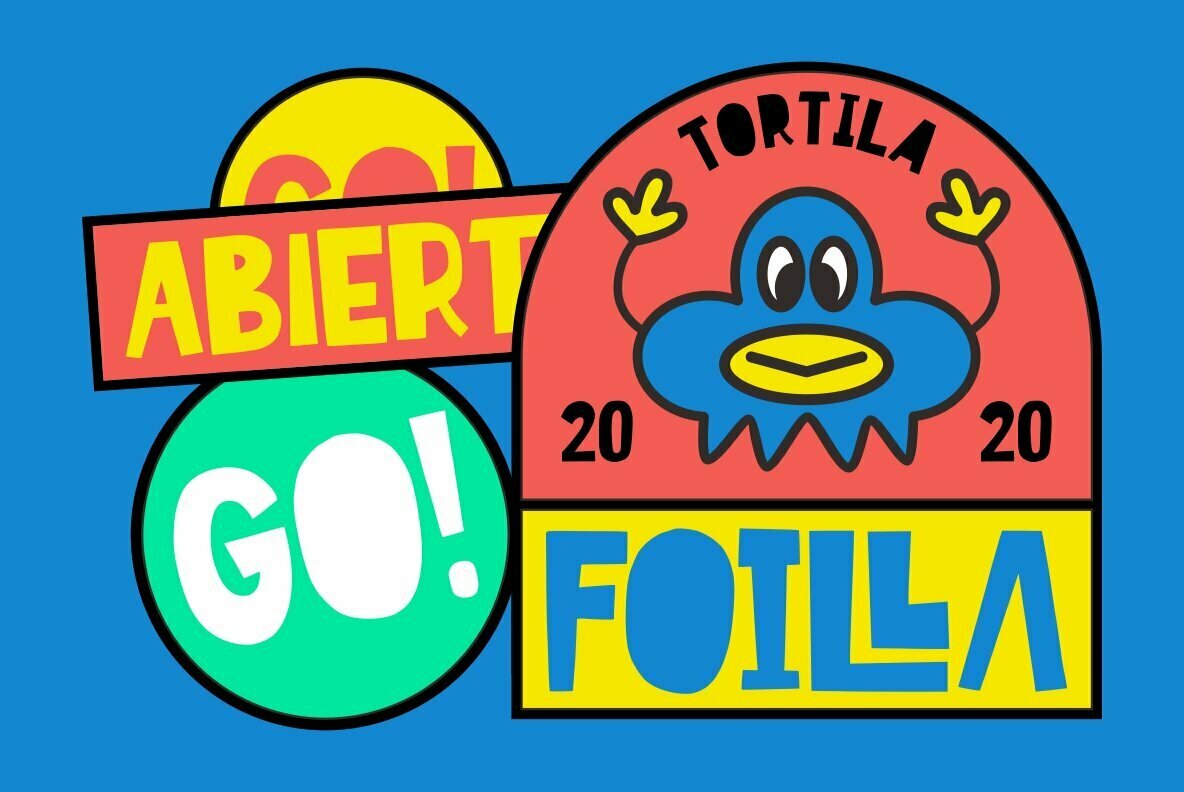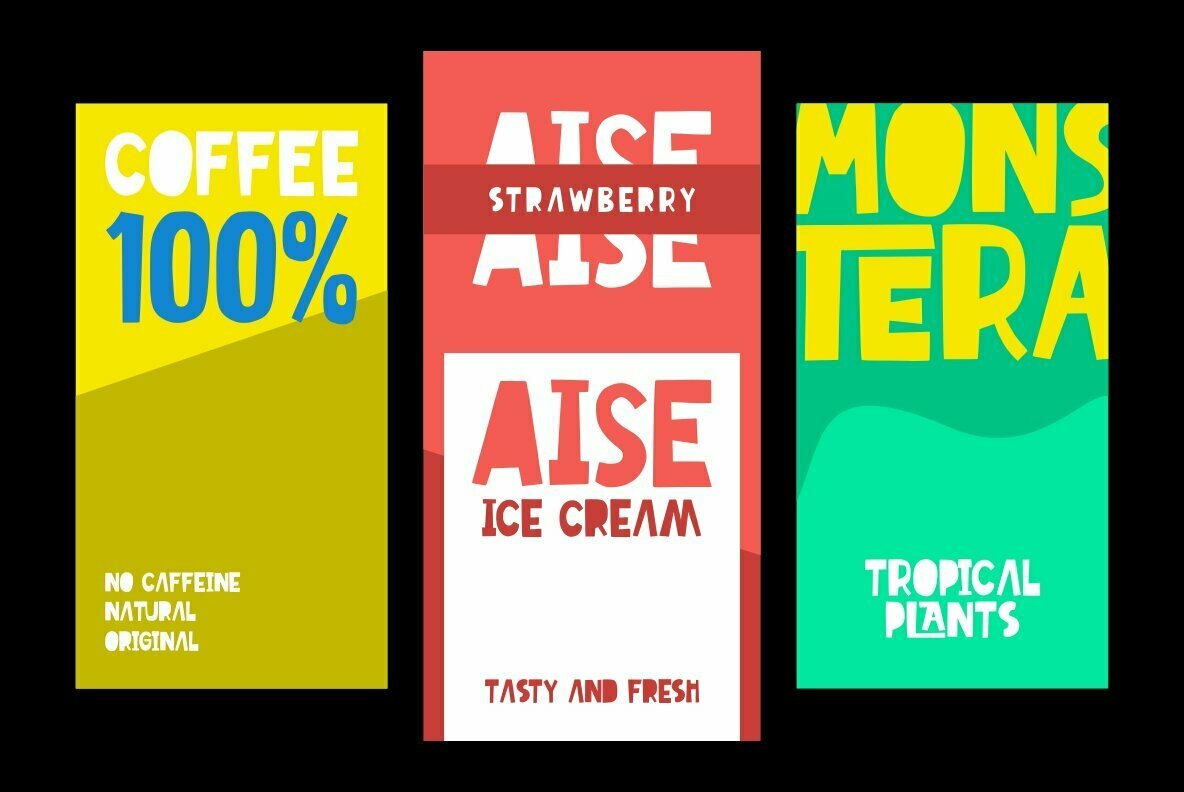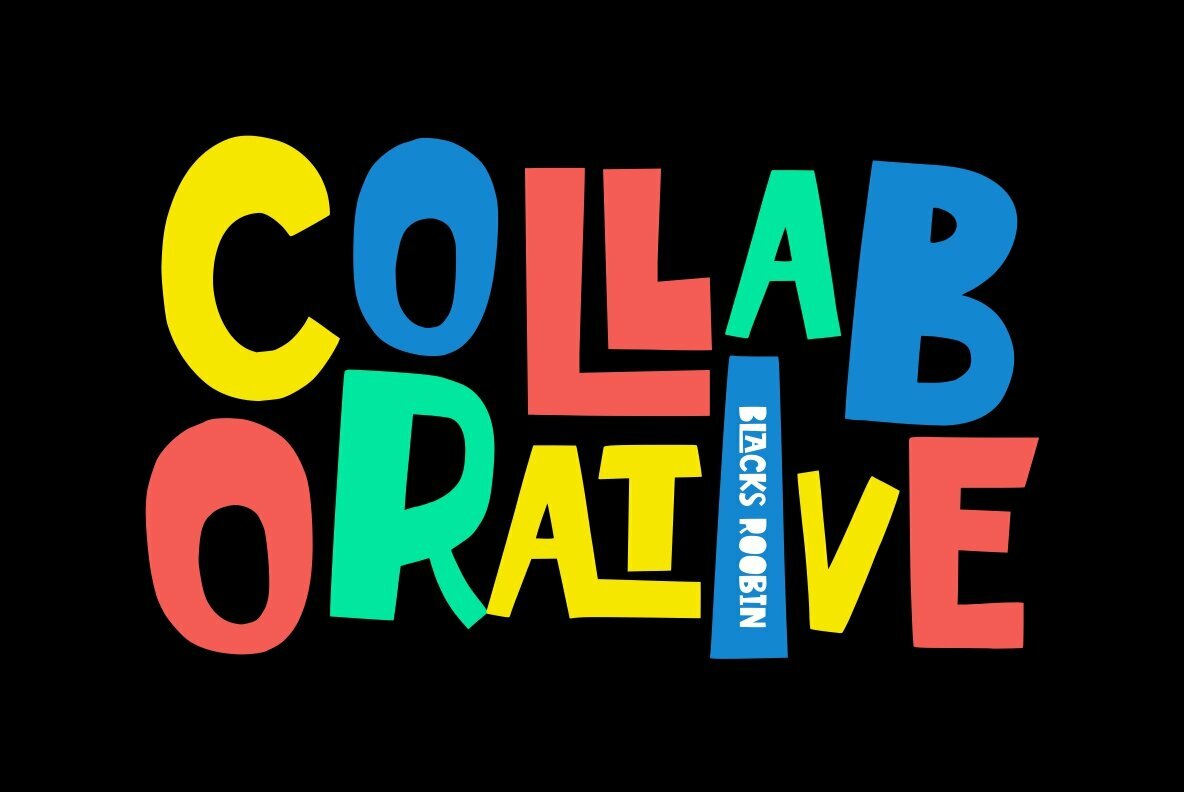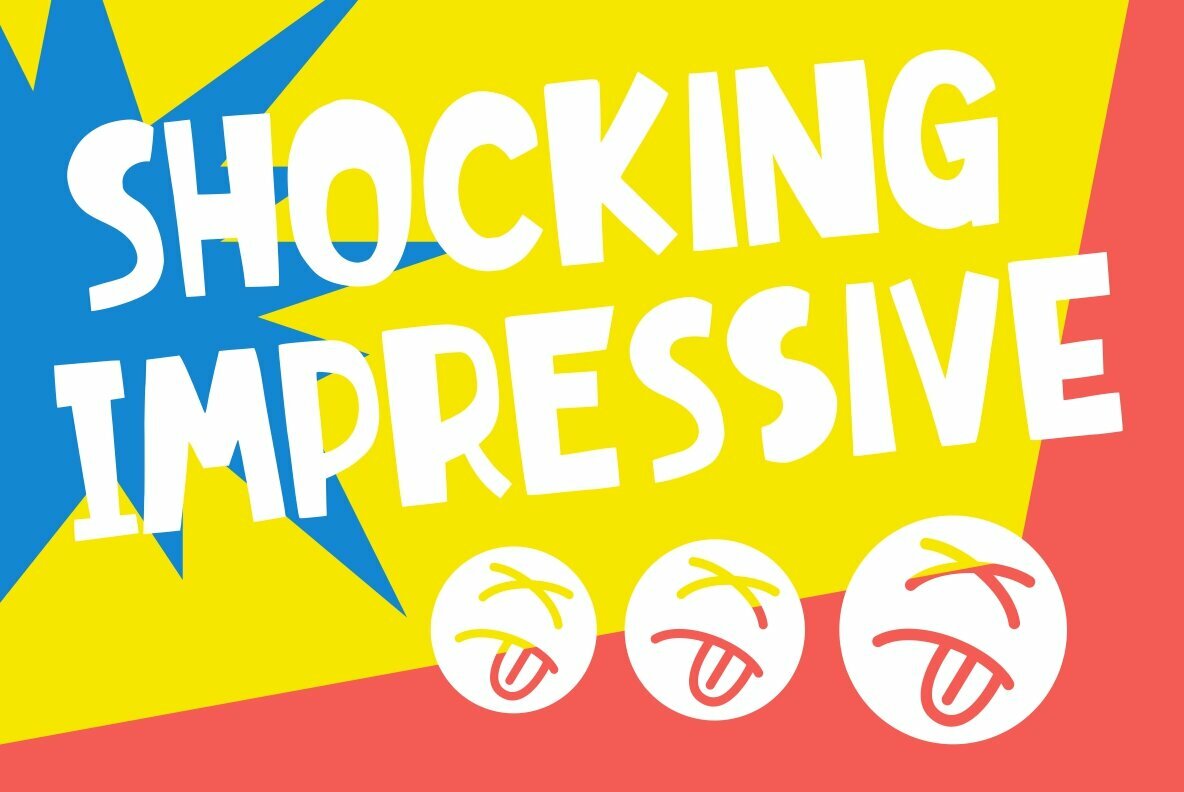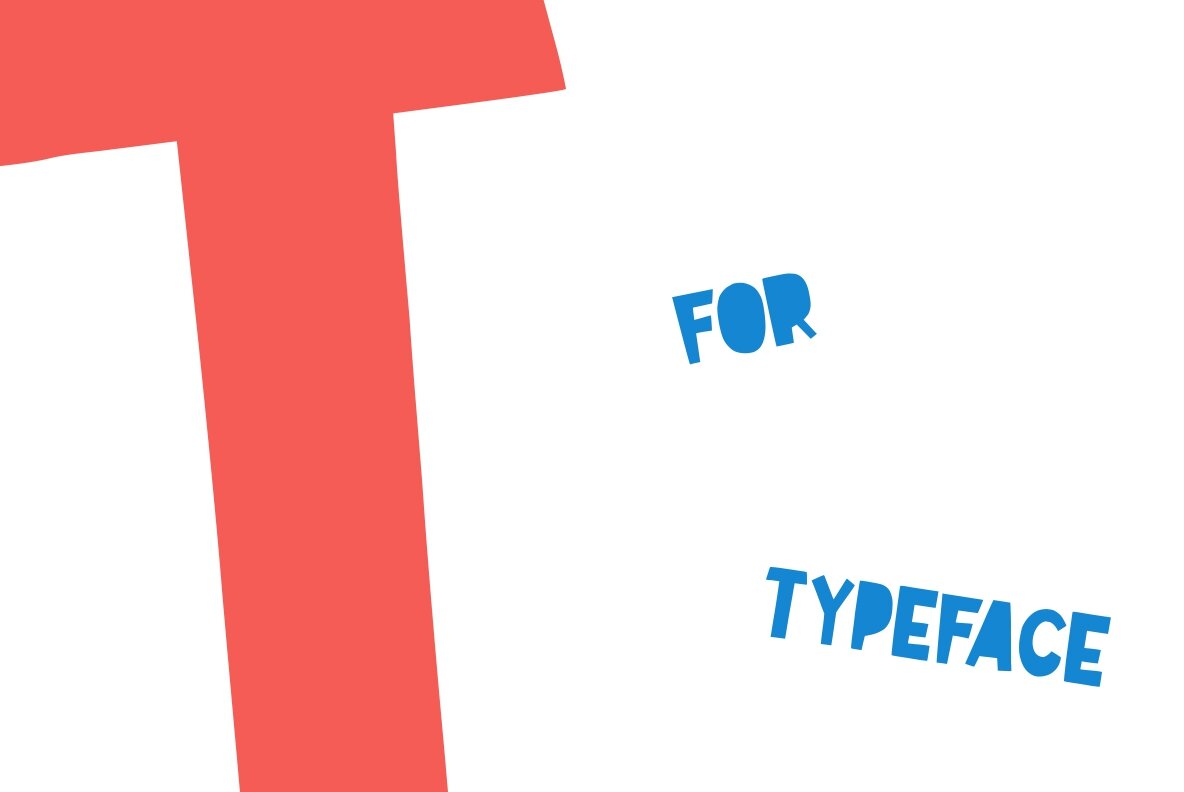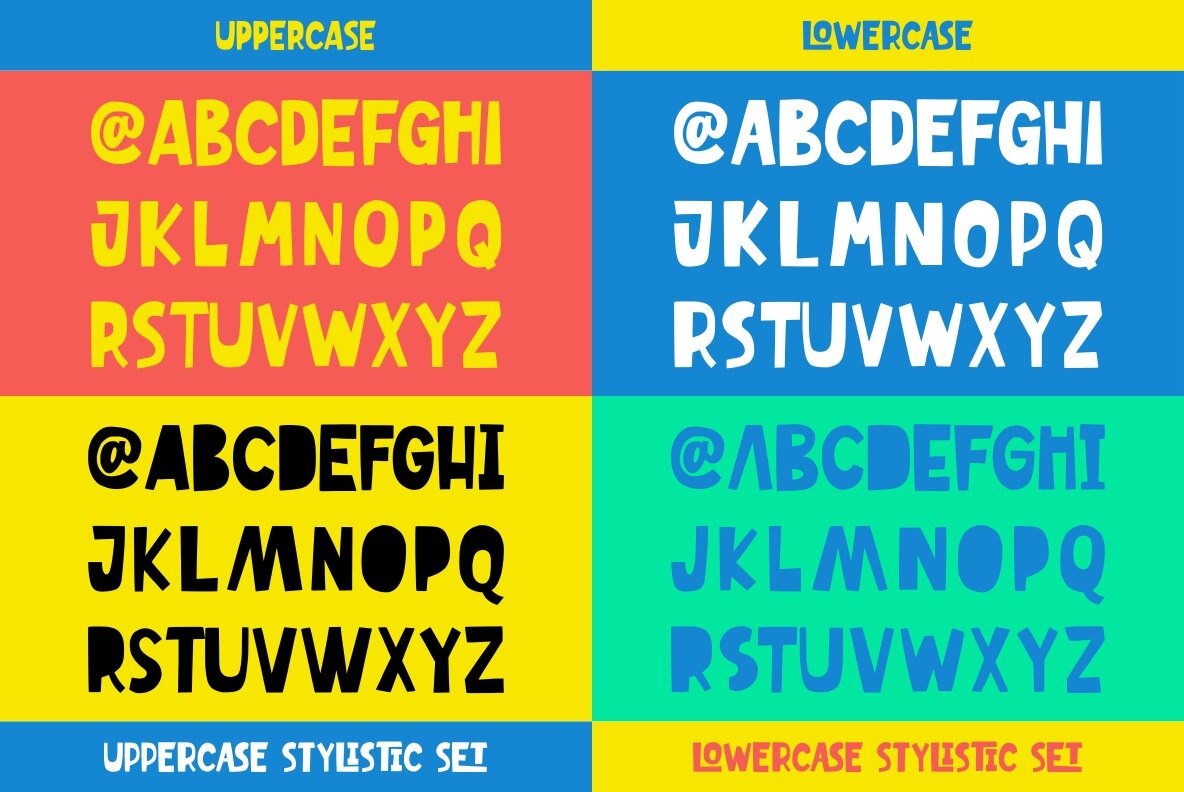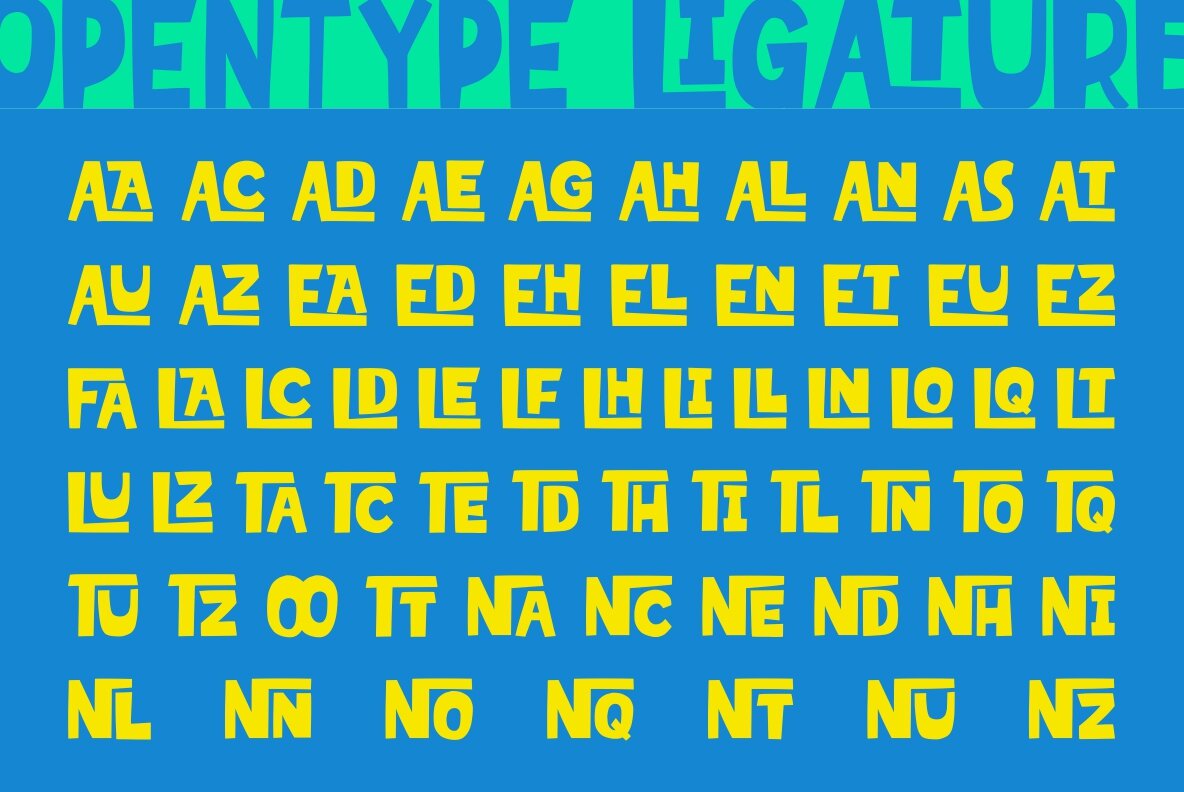
Blacks Roobin Font
Blacks Roobin
Blacks Roobin - Pop Kids is a bold and fun display font with a pop touch. It brings joy and happiness to all of us. Inspired by a bold and fun marker with bold and strong style. This font is ideal for display, text, print, branding, signage, with a set of optimal characters for your design in any layout